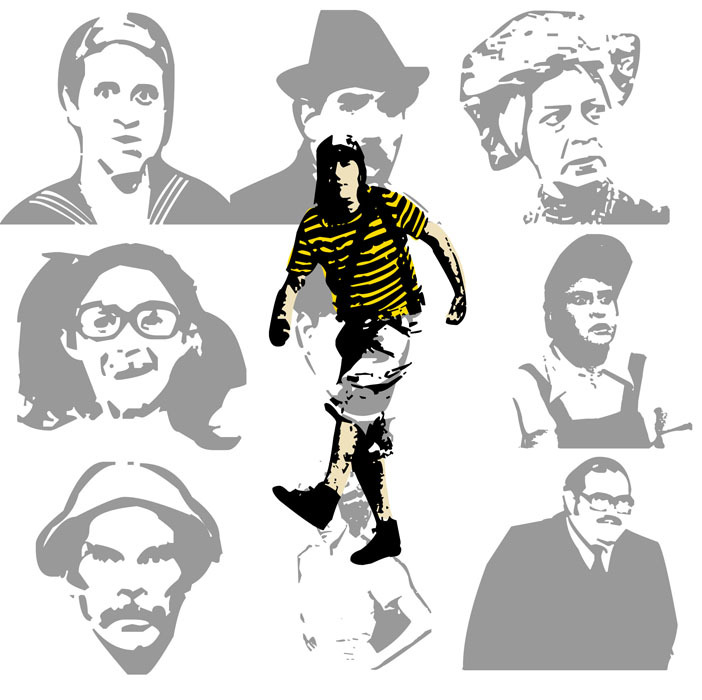
EL Chavo Del 8 is a free portrait dingbat font built around comic character studies. Each symbol is drawn as a loose, high-contrast ink portrait or full-length figure, with comic expressions and theatrical body language. Broken contours and scattered flecks give the drawings the rough immediacy of photocopied fan art.
Merchandise is its most convincing setting, since the faces and poses can function as ready-made illustrations on shirts, stickers, and badges. Event posters, fan publications, and digital graphics can use the same sketchy figures as recurring emblems, with their shared linework tying different pieces into a recognizable series.